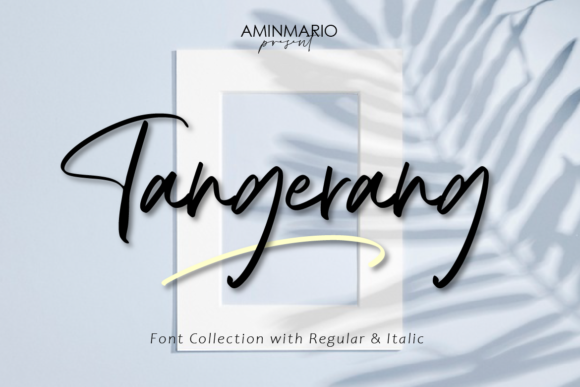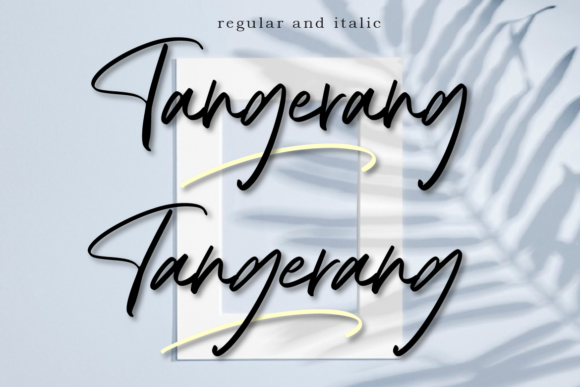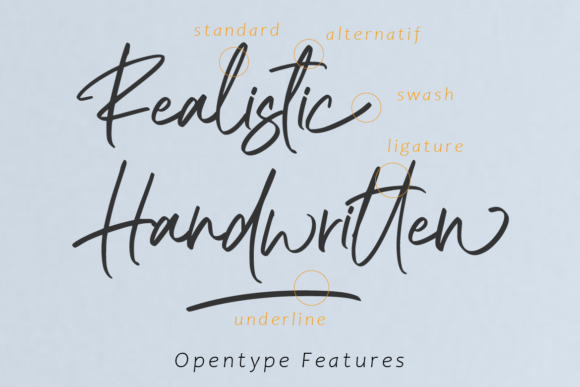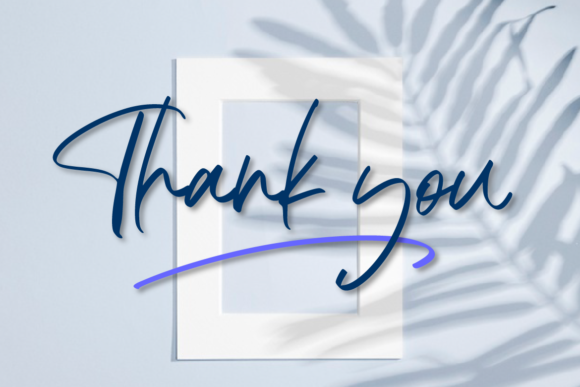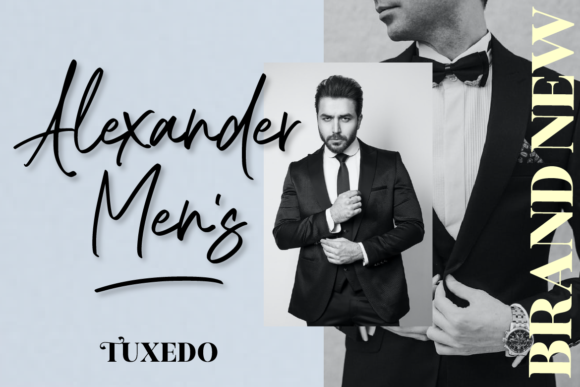
About Tangerang Font
Tangerang is a modern handwritten font that is readable, bold and stylish. It is defined by smooth curves and is perfect for fashion branding or editorial designs. This font is PUA encoded which means you can access all of the glyphs and swashes with ease!